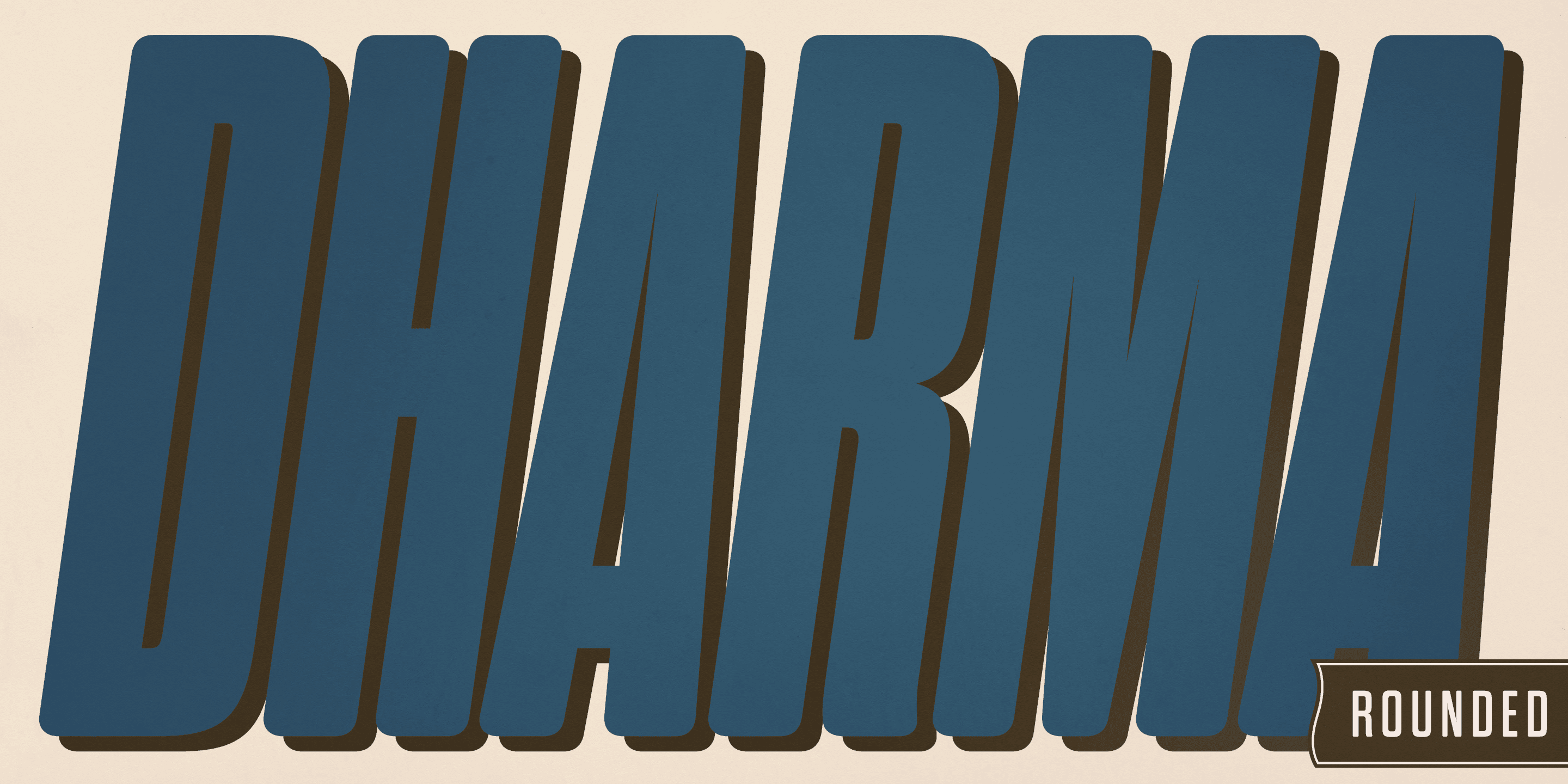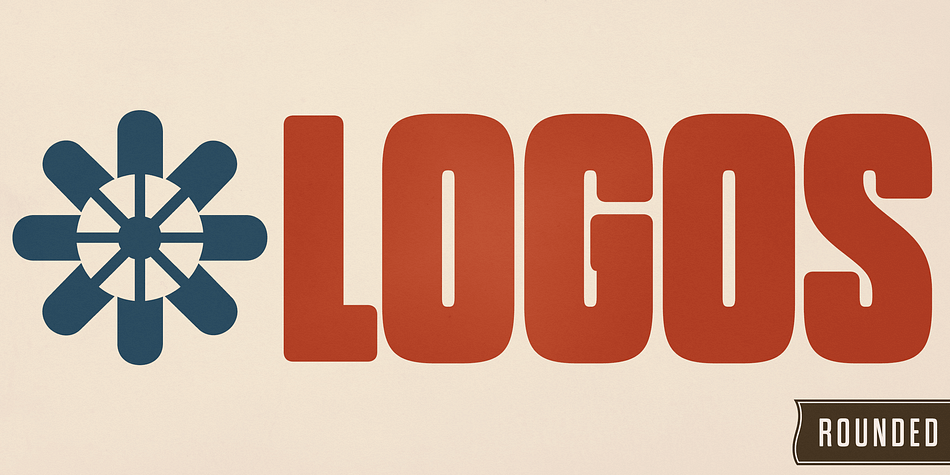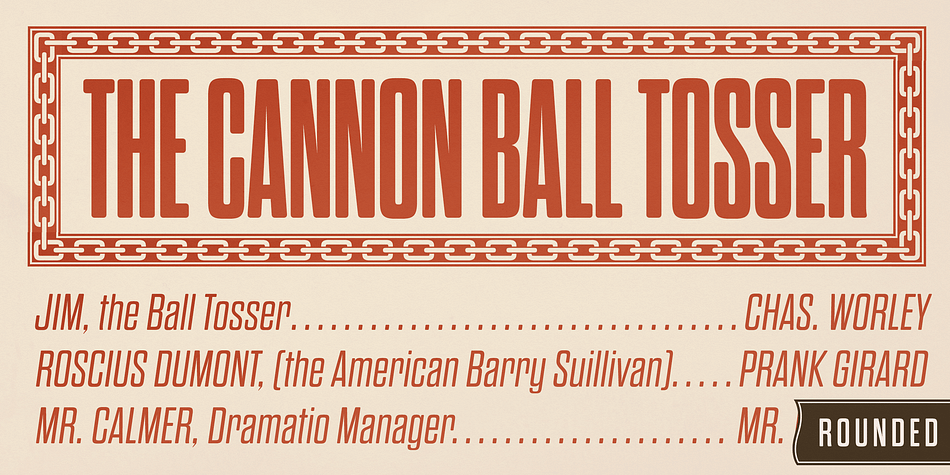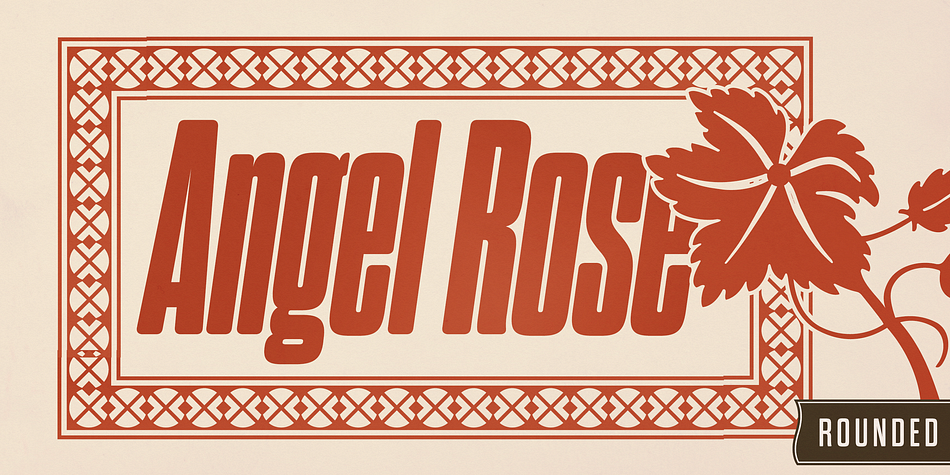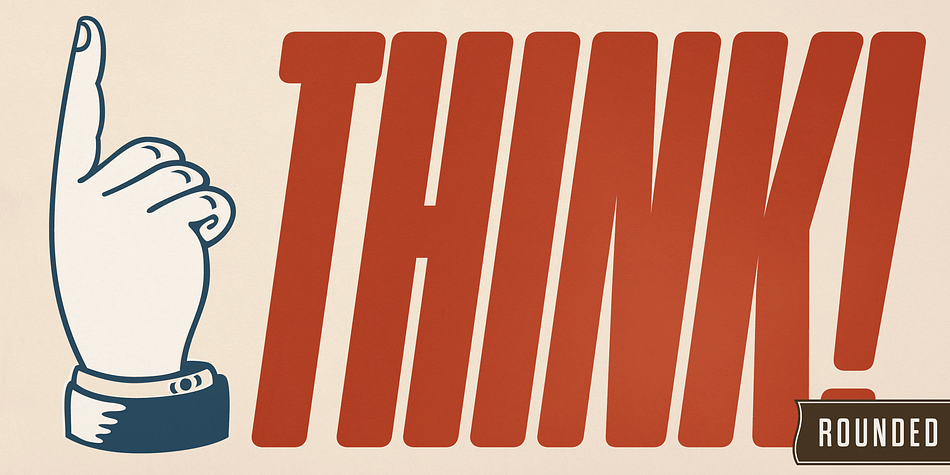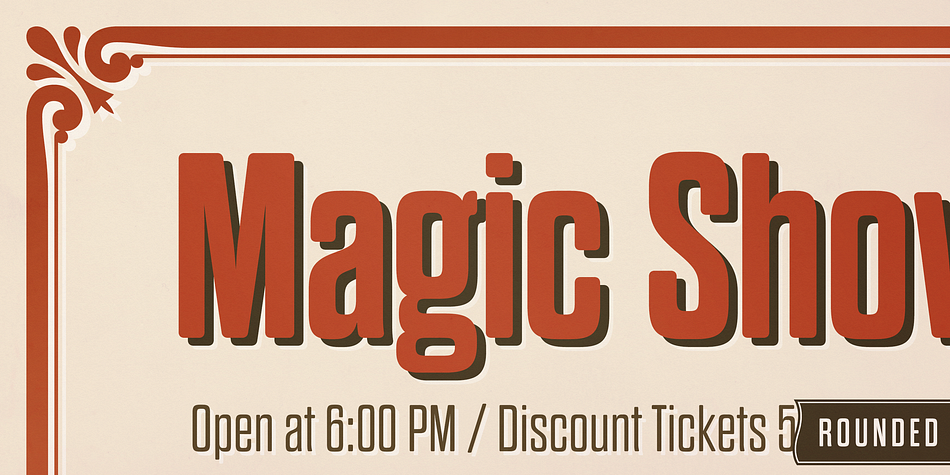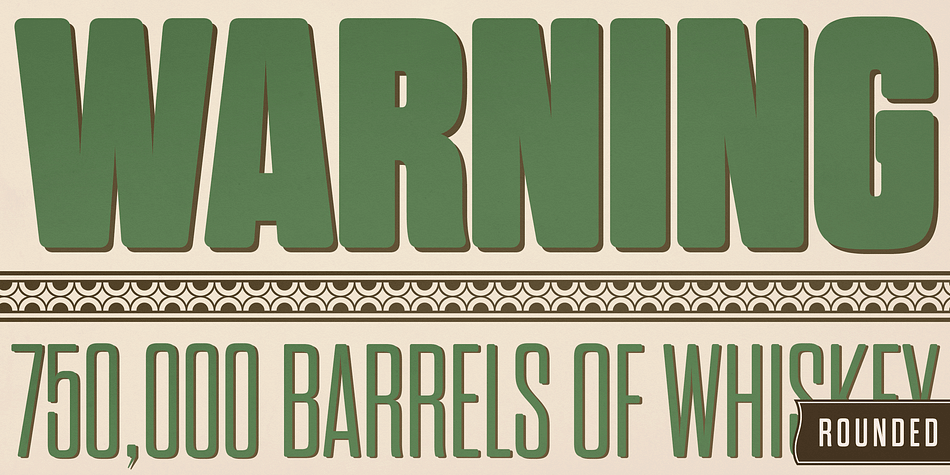
Designed by Ryoichi Tsunekawa, Dharma Gothic Rounded is a retro and sans serif font family. This typeface has forty-two styles and was published by Dharma Type.
Dharma Gothic Rounded is an antiqued sans serif designed inspired by 1800s-style wood type. All glyphs had been designed carefully to be retro-looking of the old time and to fill all with nostalgia.
There is a normal(no-rounded) version of this font family called Dharma Gothic.
This condensed font family with 42 styles will be the best solution for posters, titles and anywhere you need impact. To complete your work perfectly, Gothic Extras Family is ready for free. They include borders, ornaments and frames designed using a vintage catalog of Hamilton in the 1800s as a model.
g, r and y have alternative glyphs that are available with the OpenType salt feature and tabular figures are available with tnum feature.
Be sure to check out the slab serif style of this Dharma series named Dharma Slab and Distress version Dharma Gothic P.